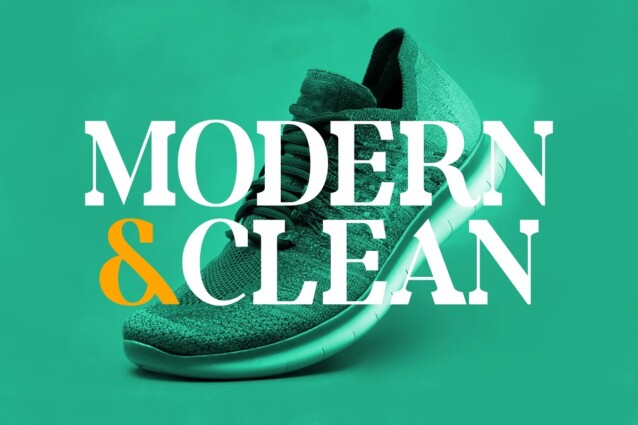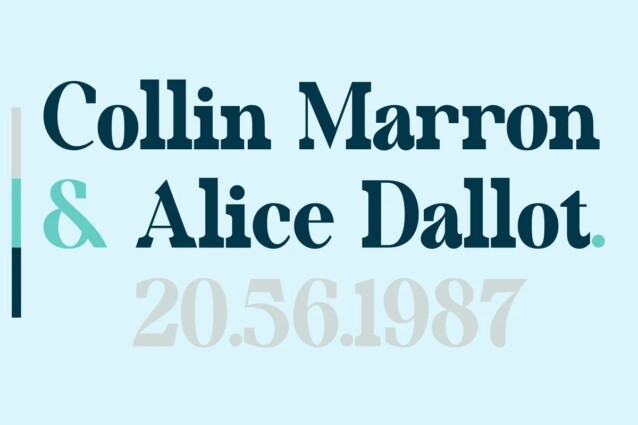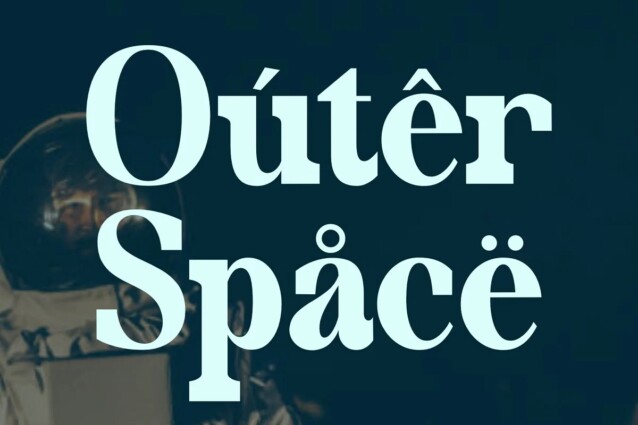
Molgen Font
Molgen Font is a stunning slab-serif font that lives for being the center of attention. With a unique blend of classic serifs and contemporary display elements, it is a font that encapsulates the perfect balance between tradition and innovation. In the world of typography, Molgen is your gateway to elegance and modernity.